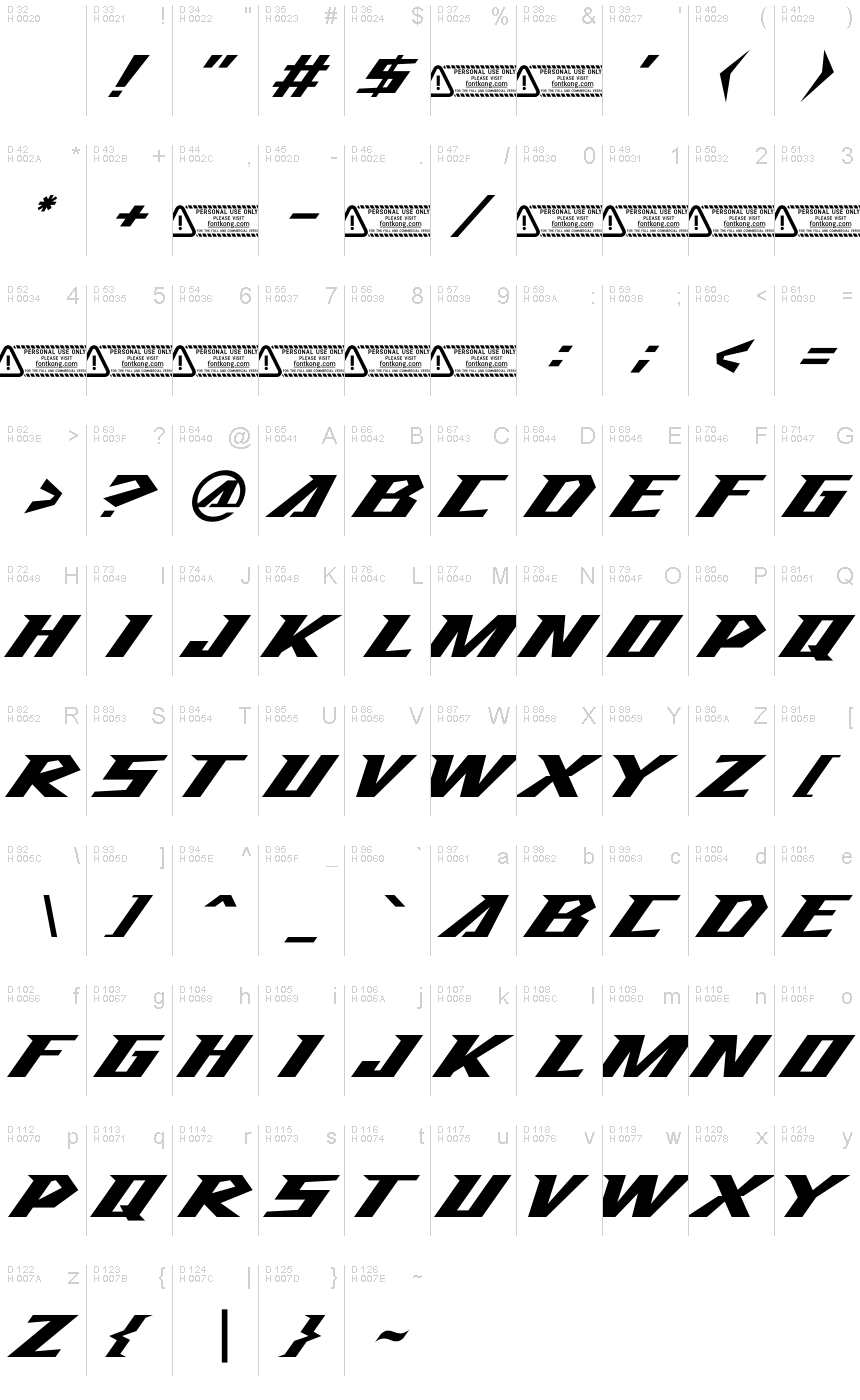
Remover, a bold and expanded display font crafted by Kong Font, exudes a captivating techno-inspired essence. Its sharp, angular lines and elongated letterforms create a striking visual presence, evoking a sense of futuristic dynamism and cutting-edge elegance. The font's strong, unwavering personality commands attention, making it an impactful choice for various design projects.
This versatile font lends itself well to a range of applications, from eye-catching headings and impactful logos to dynamic branding collateral and sci-fi-inspired digital interfaces. Its bold, expanded proportions ensure maximum legibility and visual impact, making Remover an ideal selection for projects seeking to convey a sense of technological prowess, industrial chic, or forward-thinking design.